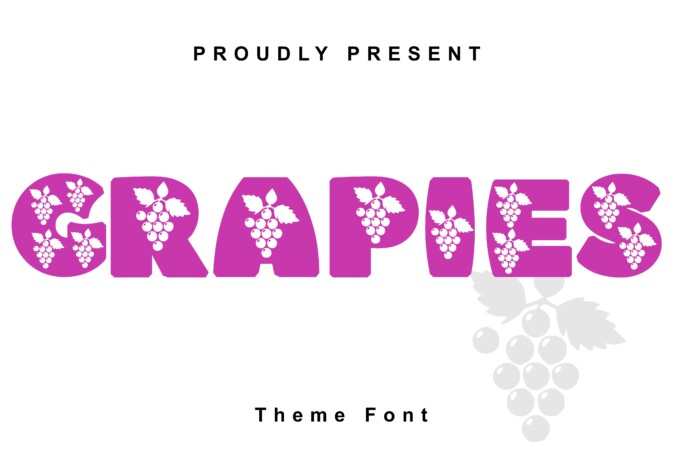
Grepies Font
Designer: Infontree
Grapies is a juicy, fruit-inspired display font designed to bring a burst of playful energy to your designs. Each letter is packed with adorable grape illustrations, making it perfect for kids’ projects, fruit packaging, juice labels, classroom materials, and seasonal farm market branding. Its bold and bubbly style instantly adds freshness and fun.